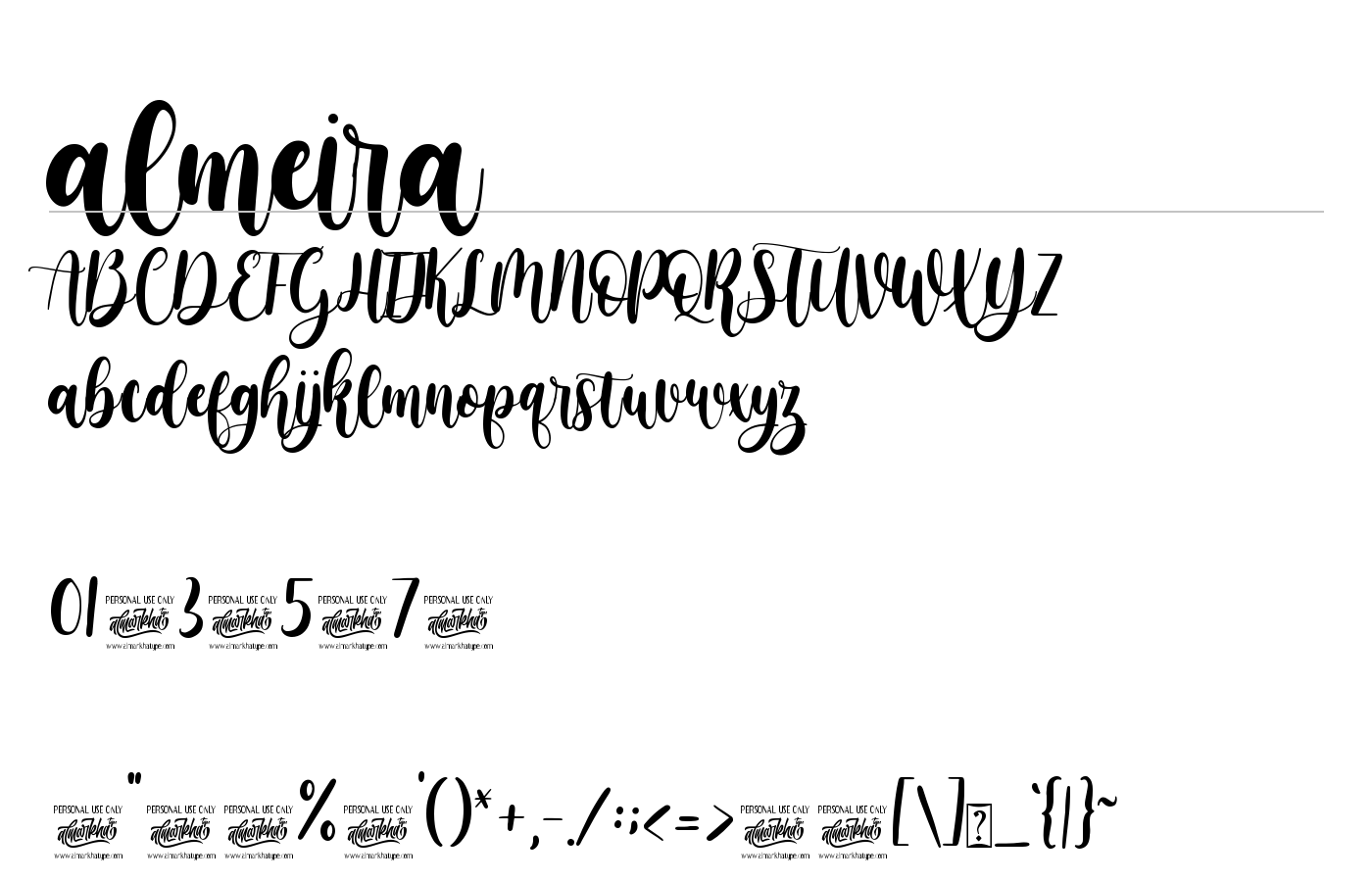
Almeira is a playful and elegant script font with bold, flowing strokes that convey a warm, friendly personality. Its carefully crafted swashes and rounded edges make it ideal for invitations, branding, and creative projects that need a stylish yet approachable feel. This font works wonderfully in headlines and decorative text, adding charm and character wherever used.
almeira Font
About almeira Font